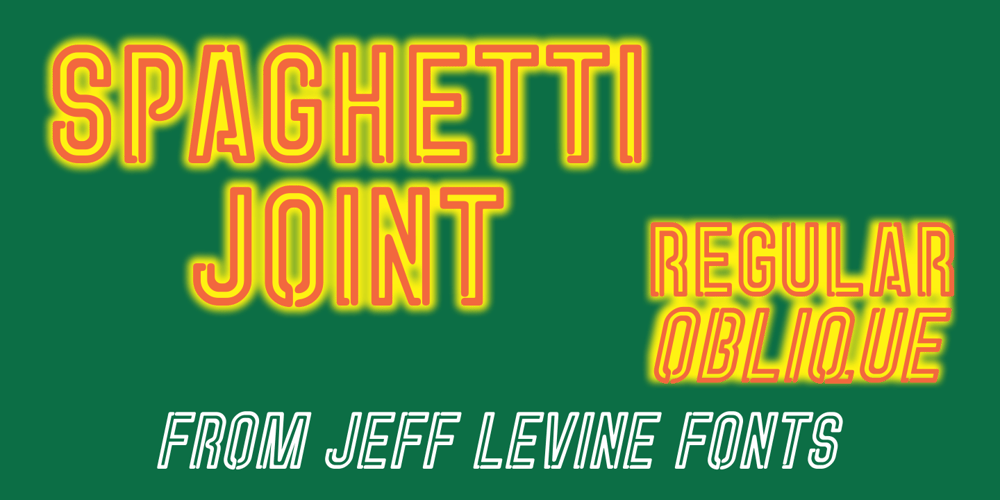
Spaghetti Joint JNL
Spaghetti Joint JNL font
Spaghetti Joint JNL Font Family was designed by Jeff Levine and published by Jeff Levine. Spaghetti Joint JNL contains 2 styles and family package options. An image from the Library of Congress showing a New York City Italian Kitchen storefront window and its various neon signs inspired Spaghetti Joint JNL, which is available in both regular and oblique versions.The term “Spaghetti Joint” is old-fashioned slang for any restaurant serving Italian cuisine, especially those featuring spaghetti or other pasta dishes.